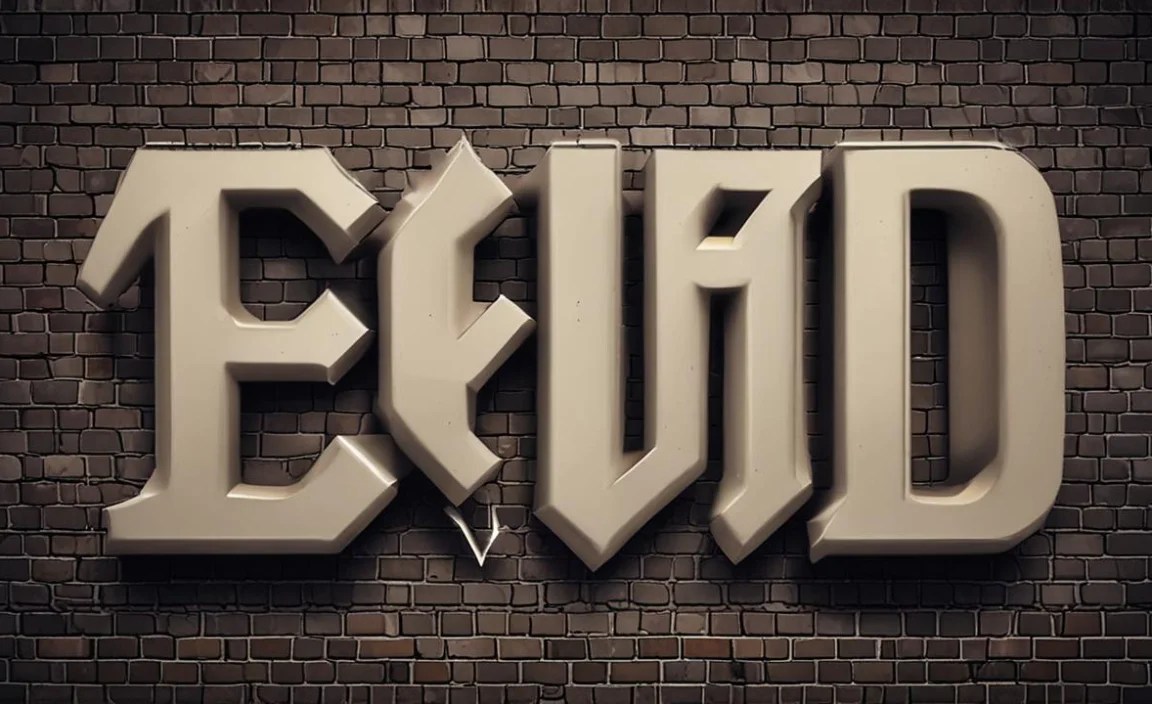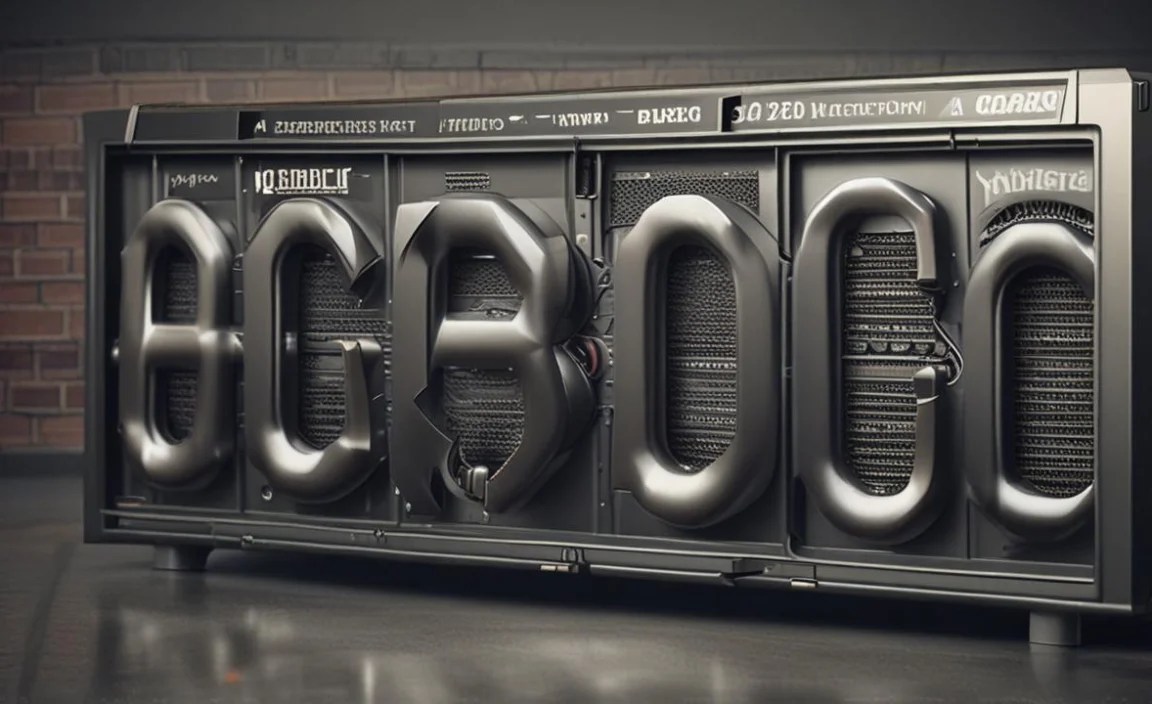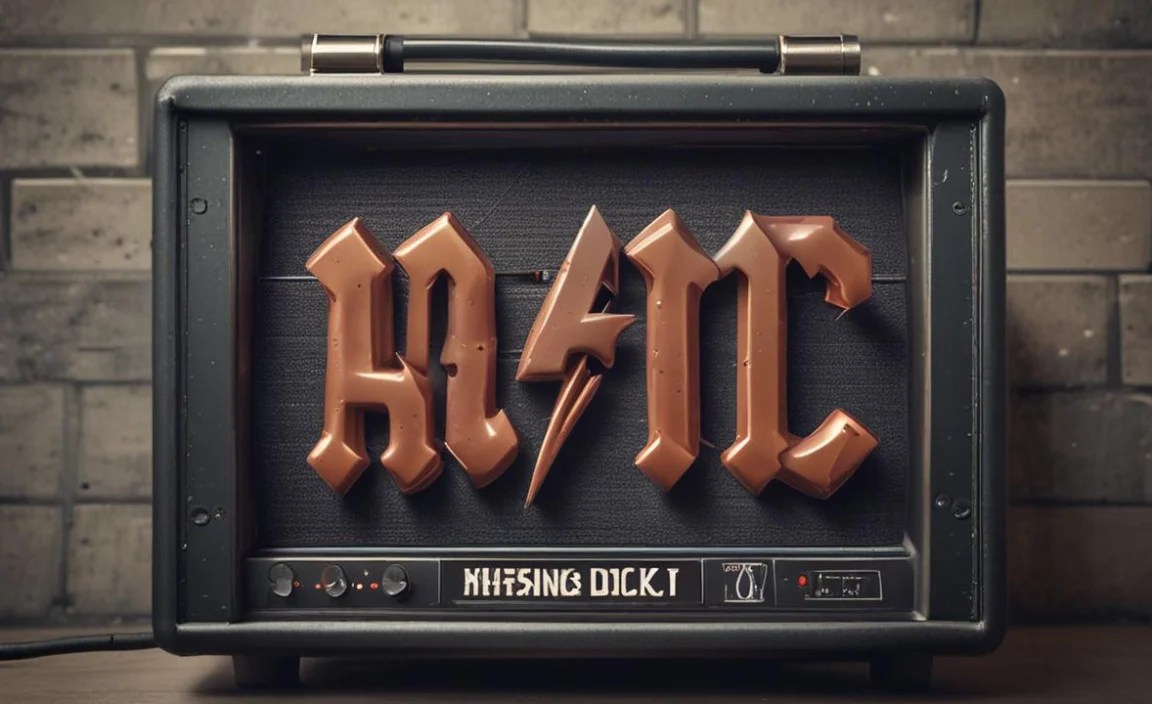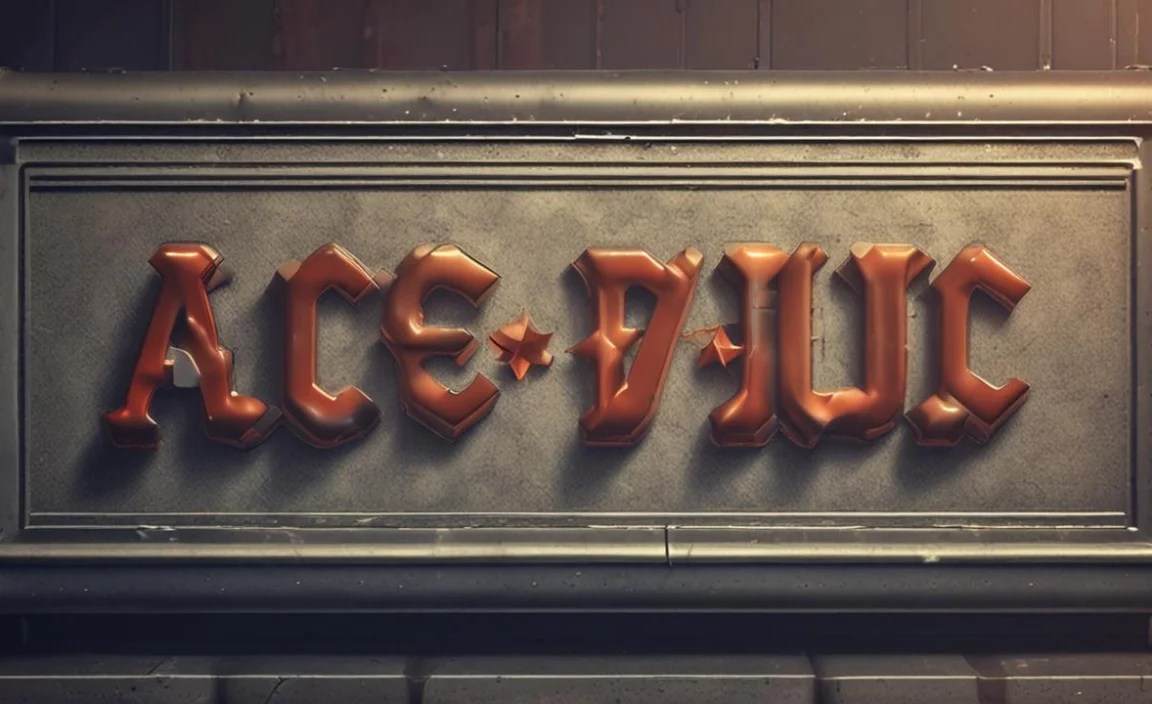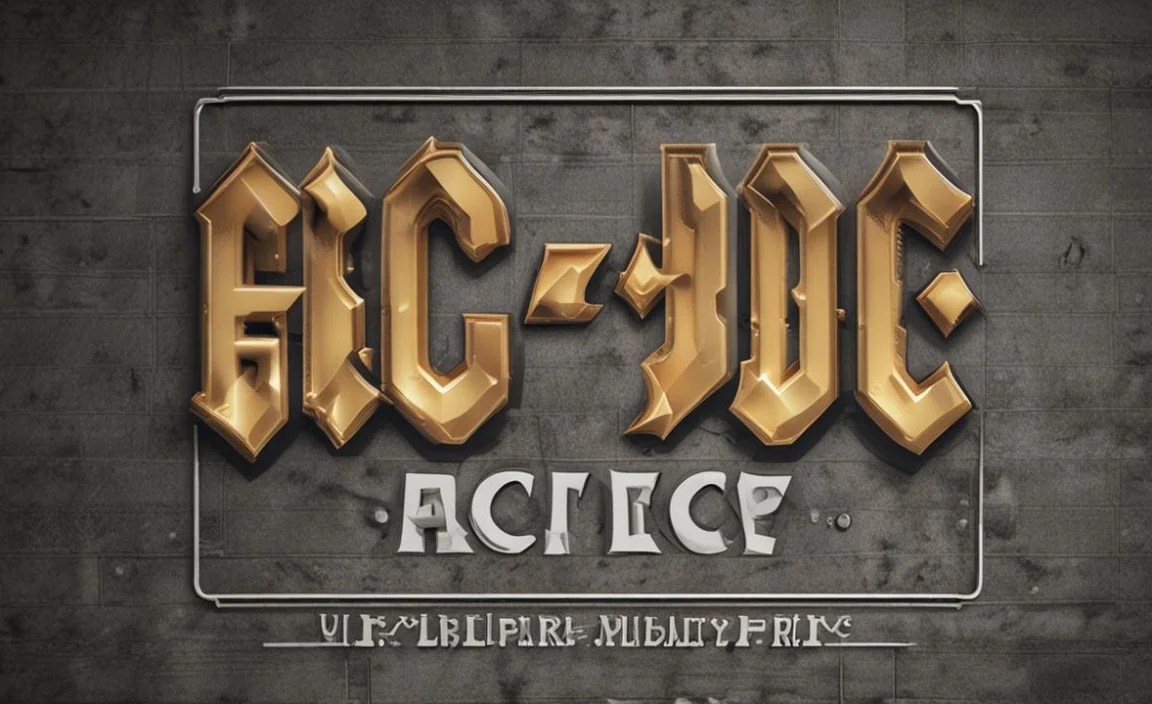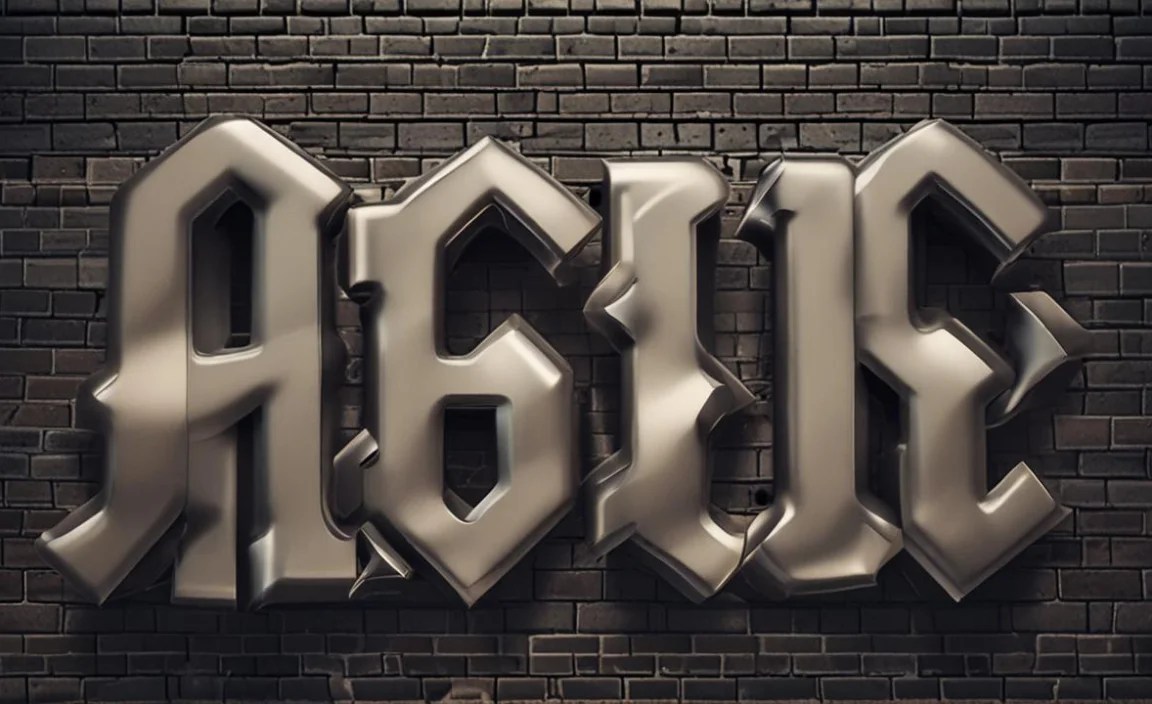
The AC DC Font is deeply associated with the legendary Australian rock band AC DC, known for their electrifying hard rock hits.
The font, designed by Gerard Huerta, is used in the band’s iconic ACDC Logo, first seen on their albums like High Voltage and Back in Black. This bold and electrifying font captures the raw energy and rebellious spirit of the band.
AC DC Font Information In Chart
| Name | “AC/DC Font” |
| Style | Blackletter, Stencil |
| Designer | Gerard Huerta, Raymond Larabie |
AC DC Font Family Includes
- Glaser Stencil D Regular
- squealer embossed
- squealer
Where AC DC Font Is In Use
- Album Covers: High Voltage, Back in Black, The Razor’s Edge
- Posters: Used in promotional posters for the band
- Flyers: For concert and event designs
- Merchandise: T-shirts, hats, and other AC/DC band merchandise
- Logo Designs: Used in the band’s official logo and branding materials
- Music Videos: Featured in title sequences and promotional videos
- Squealer + Impact: The bold, heavy nature of Squealer pairs well with Impact for striking headlines.
- Squealer + Roboto: A modern, clean font that balances the loud, intense style of Squealer.
The AC/DC Font is more than just a typeface; it’s an emblem of rock history. Designed by Gerard Huerta, this font has become iconic, representing the rebellious spirit of the band.
The font was designed by Gerard Huerta, who is also credited with designing the ACDC Logo.
The AC/DC Font is great for album covers, posters, logos, and merchandise designs.
Glaser Stencil, Freehand 575, and Squealer are some fonts that are visually similar to the AC/DC Font.
7.What Makes The AC/DC Font Stand Out?
The AC/DC Font stands out due to its bold blackletter design, the iconic lightning bolt symbol, and its association with the rock music legend.